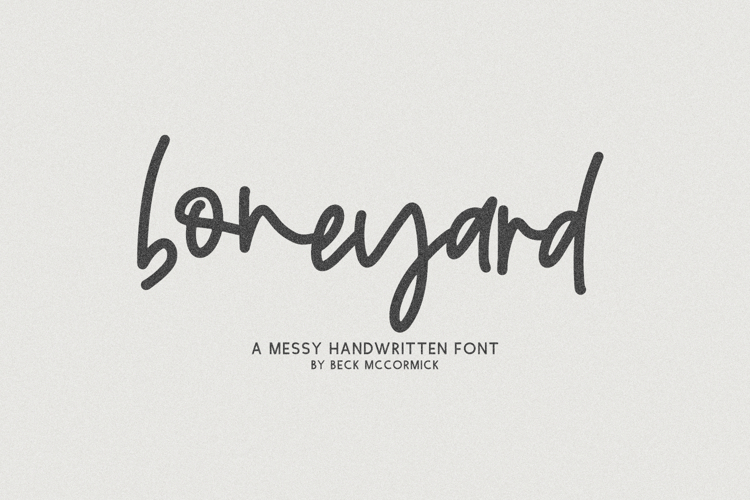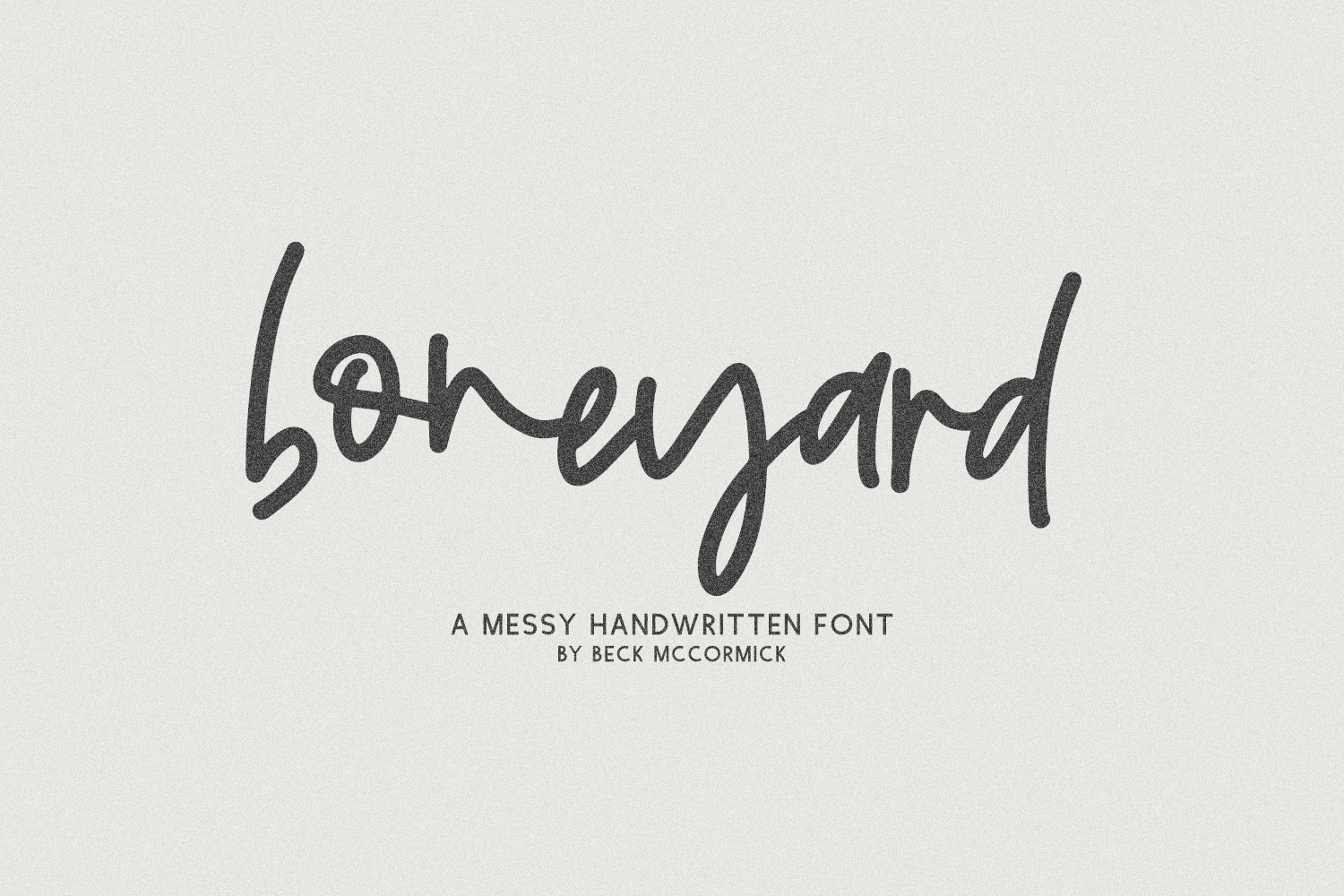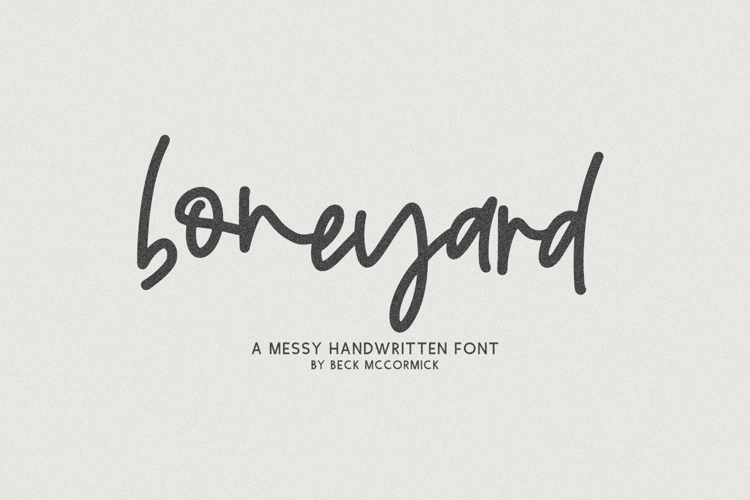
Introducing Boneyard, a messy, monoline handwriting font.
Boneyard is best for:
- website design + website accents, blog design
- 26 alternate lowercase characters
- 10 ligatures - bb, dd, ff, ll, mm, nn, oo, rr, ss, tt